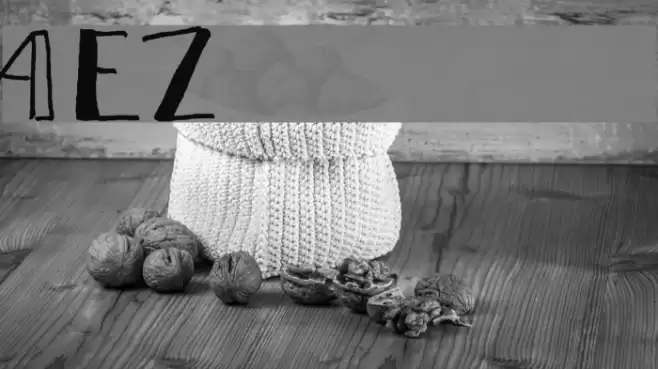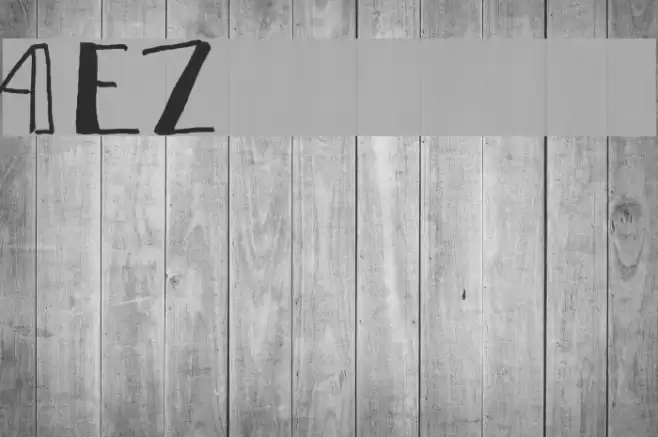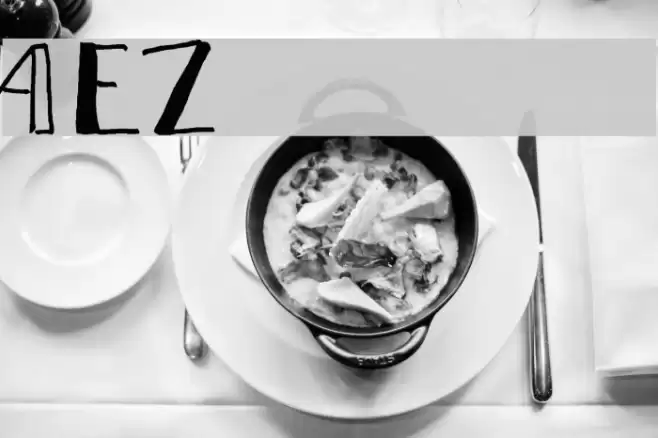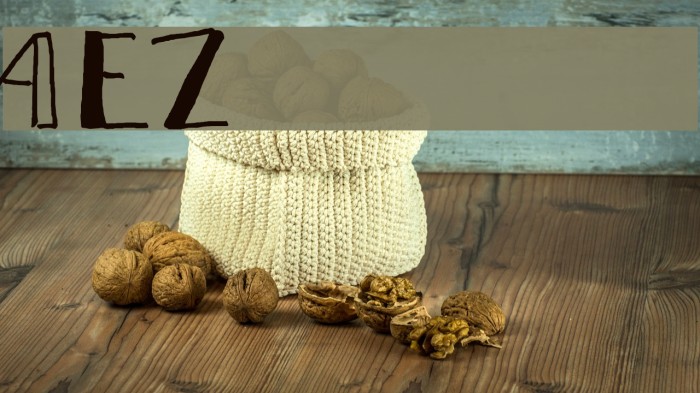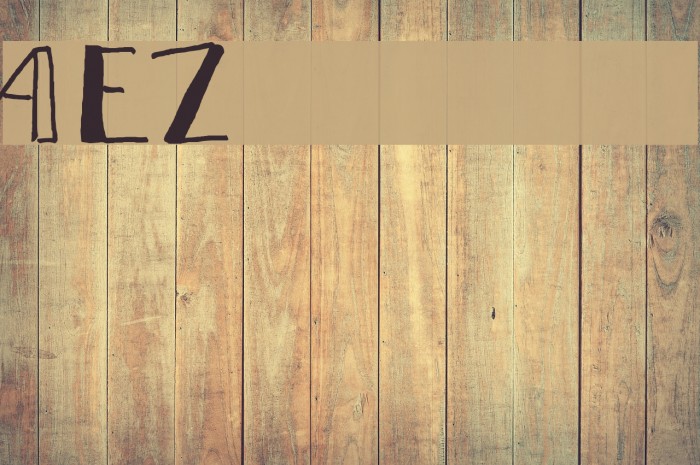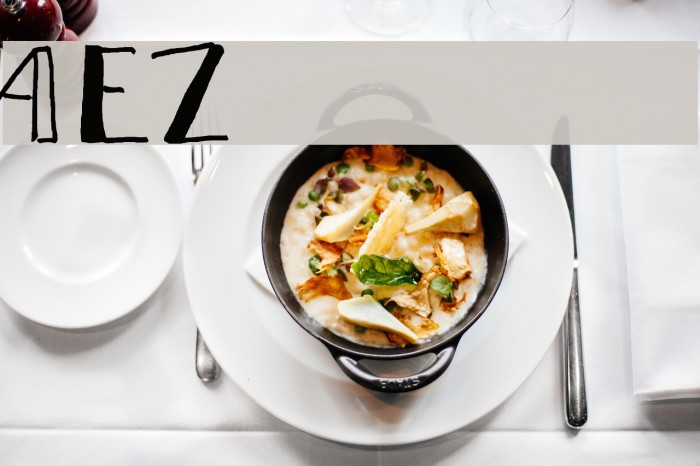
AEZ no name Font
AEZ no name Description
This font features a playful and eclectic style, with each character exhibiting a unique and hand-drawn appearance. The uppercase letters vary in thickness and form, creating a dynamic and whimsical look. Some characters have bold strokes, while others are more delicate, adding to the font's charm. The irregularities in the letterforms give it a handcrafted feel, making it suitable for creative and artistic projects. The font's distinctive style is eye-catching and can add a touch of personality to any design.
A playful, hand-drawn font with varied thickness and whimsical character from Uncategorized fonts.
- Proposed Projects: Ideal for children's books, creative posters, artistic branding, and playful invitations.
- Overall Style: Whimsical, Artistic